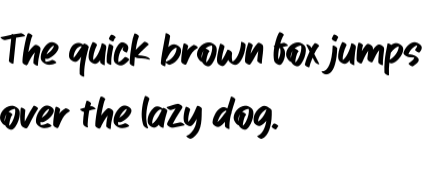
Introducing Start Gater Font: Unleash Your Creative Expression
In the world of typography, few fonts manage to capture the essence of confidence and creativity as effectively as the Start Gater Font. This bold and energetic brush script font is designed to emulate the natural flow of handwritten strokes, bringing a dynamic and personal touch to your designs. Whether you’re working on branding, titles, social media posts, or any project that demands an expressive flair, Start Gater is the perfect choice.
The Unique Charm of Start Gater
Start Gater’s design is rooted in its ability to mimic the confident brush strokes of a skilled artist. Each letter is crafted to convey a sense of movement and energy, making it an ideal font for projects that require a bold statement. The casual yet impactful style of Start Gater ensures that your designs stand out, capturing the attention of your audience and leaving a lasting impression.
Key Features of Start Gater Font
- Bold and Energetic: Start Gater’s brush script style is both bold and energetic, perfect for making a statement in your designs.
- Natural, Handwritten Flow: The font’s design emulates the natural flow of handwritten strokes, giving it a personal and authentic feel.
- Full Uppercase, Lowercase, Numerals, and Symbols: Start Gater includes a comprehensive set of characters, offering both style and flexibility for a wide range of design applications.
- Casual yet Impactful: The font’s casual style is balanced by its impactful presence, making it suitable for various design projects.
Perfect for a Variety of Design Applications
Start Gater’s versatility makes it an excellent choice for numerous design applications. Here are some of the areas where this font truly shines:
Branding and Logotypes
For branding and logotypes, Start Gater offers a unique opportunity to create memorable and impactful logos. Its bold and energetic style ensures that your brand stands out, making it easier to establish a strong visual identity.
Headlines and Titles
When it comes to headlines and titles, Start Gater’s confident brush strokes and natural flow make it an ideal choice. The font’s dynamic style adds a touch of personality to your titles, capturing the attention of your audience.
Social Media Graphics
In the realm of social media, Start Gater can help you create engaging and expressive graphics. Whether you’re designing posts, stories, or ads, this font’s casual yet impactful style ensures that your content stands out in a crowded feed.
Handwritten Overlays and Quotes
For handwritten overlays and quotes, Start Gater offers a level of authenticity and personality that’s hard to match. The font’s natural flow and confident strokes make it perfect for adding a personal touch to your designs.
Why Choose Start Gater Font?
With so many fonts available, why should you choose Start Gater for your design projects? Here are a few compelling reasons:
Unique Style
Start Gater’s bold and energetic style sets it apart from more traditional fonts. Its unique charm ensures that your designs stand out, making it easier to capture the attention of your audience.
Versatility
The font’s comprehensive set of characters, including full uppercase, lowercase, numerals, and symbols, makes it versatile enough for a wide range of design applications.
High-Quality Design
Start Gater is crafted with attention to detail, ensuring a high-quality design that reflects professionalism and creativity.
In conclusion, Start Gater Font is a powerful tool for anyone looking to add a bold and energetic touch to their designs. Its natural, handwritten flow and confident brush strokes make it perfect for a variety of applications, from branding and titles to social media graphics and handwritten overlays. With its unique style, versatility, ease of use, and high-quality design, Start Gater is an excellent choice for designers and non-designers alike.
Make Your Mark with Start Gater
Don’t settle for ordinary fonts that fail to capture the essence of your brand or message. Choose Start Gater Font for your next design project and experience the difference it can make. With Start Gater, you can unleash your creative expression, making a lasting impact on your audience.